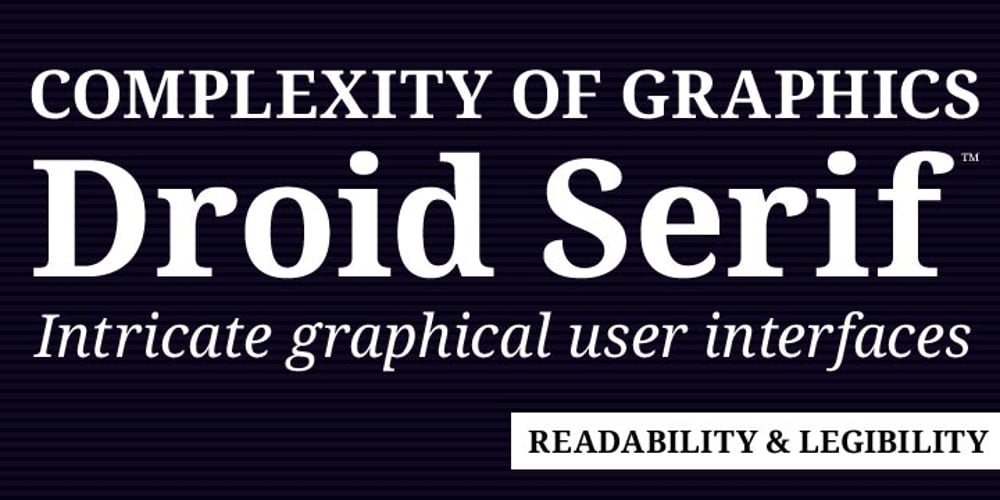
Droid Serif
Droid Serif font
Droid Serif Font Family was designed by Steve Matteson and published by Ascender. Droid Serif contains 4 styles and family package options. The Droid Serif Pro Family (4 fonts) is a contemporary serif typeface family designed for comfortable reading on screen. The font is slightly condensed to maximize the amount of text displayed on small screens. Vertical stress, sturdy serifs and open forms contribute to the readability of Droid Serif while its proportion and overall design complement its companion Droid Sans. The fonts were designed by Steve Matteson, the Type Director at Ascender Corporation. The Droid Serif Pro Family (4 fonts) includes Latin 1 and WGL character sets, along with Old Style Figures (requires an application that support advanced OpenType typographic features).